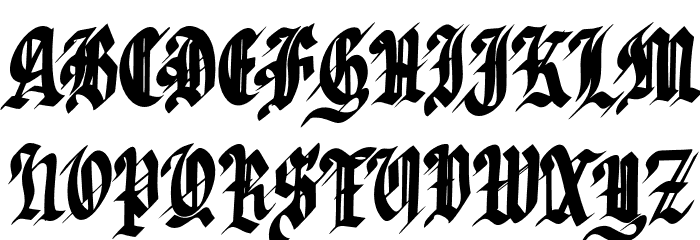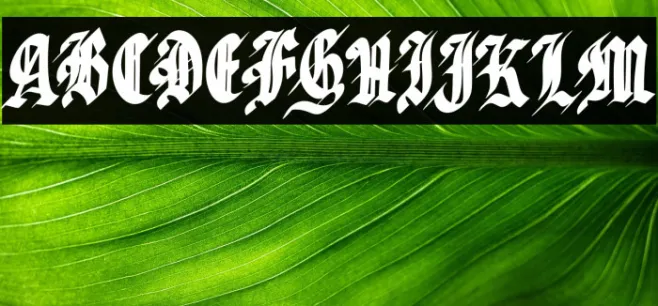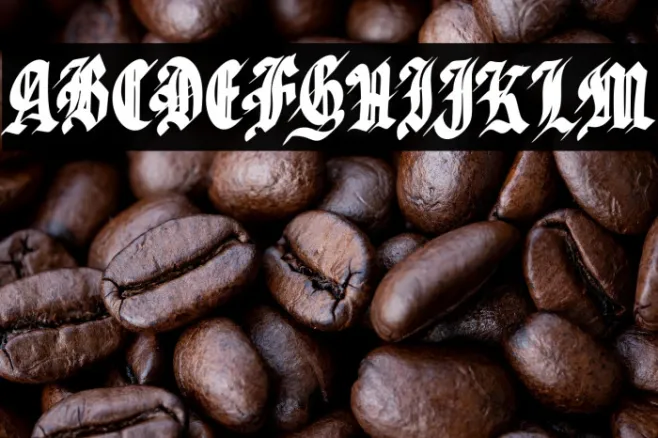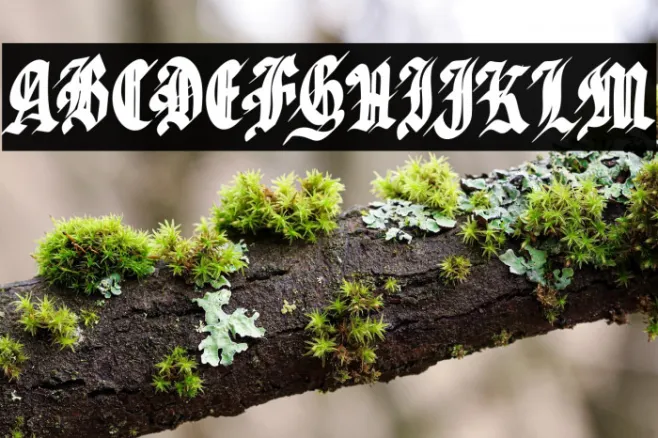
SabharFREE Font
This font is a bold and intricate Blackletter style, characterized by its dramatic and ornate design. The letters are highly stylized with sharp, angular lines and elaborate flourishes, reminiscent of medieval script. The uppercase letters are particularly striking, with exaggerated serifs and a strong vertical emphasis. The lowercase letters maintain the same level of detail, creating a cohesive and visually impactful typeface. The numbers and special characters are equally ornate, ensuring consistency across all elements. This font is perfect for projects that require a historical or gothic aesthetic.
A bold, intricate Blackletter font with dramatic, ornate design.
- Font: SabharFREE
- Proposed Projects: Ideal for historical documents, gothic-themed designs, book covers, posters, and branding that requires a medieval or vintage feel.
- Category: Blackletter
- Overall Style: Vintage
- Use Case: Logos, Headlines, Decorative text